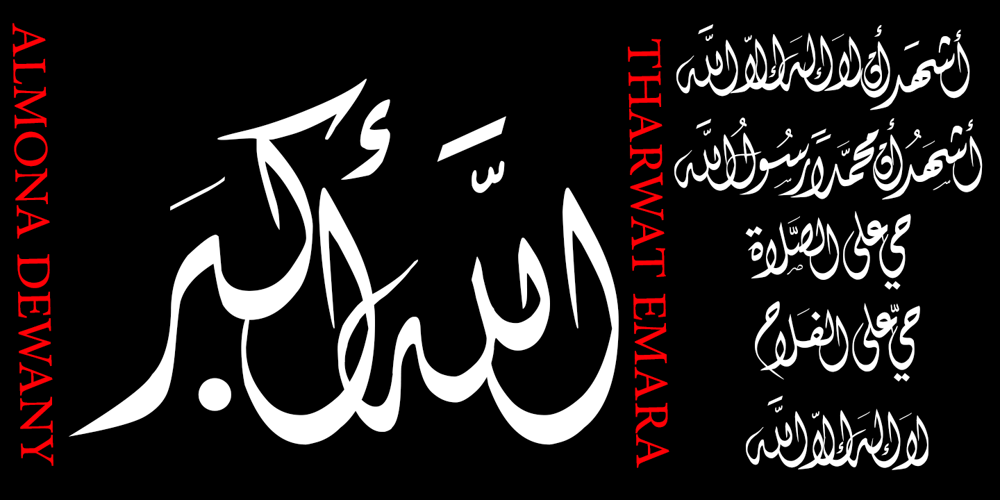
TE Almona Dewany Font Family was designed by Tharwat Mohamed Emara and published by Tharwat Emara. TE Almona Dewany contains 1 styles and family package options. The DEWANY (ALMONA DEWANY ) font is a font of original Arabic fonts and is specialized in writing in the offices of the Sultan and Arab’s Kings. It is also one of the most beautiful Arabic fonts as it has the flexibility to write official graduation certificates, certificates of appreciation, scientific progress and decorations. It is also commonly used in writing posters and sequences for serials, films, medals and decorations on clothes. The ALMONA DEWANY font has its aesthetics derived from its round and interlocking letters. In this version of Dewany font ( Almona Dewany ) you will find many of Arabian names, Ayat of Holley Quran and Good names of Allah (Asmaa Allah Al-Hosnna) and all of this is ready to written quickly by one click and choose glyphs you want to add.